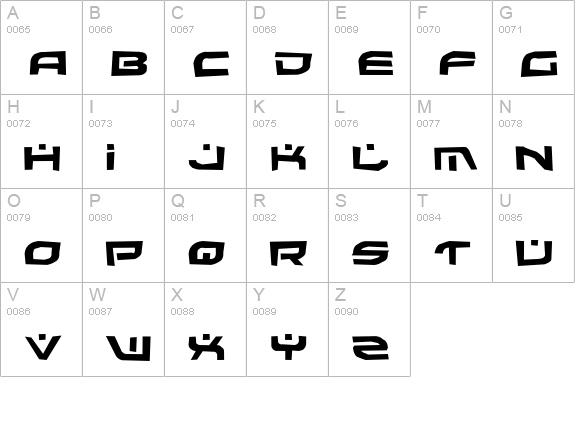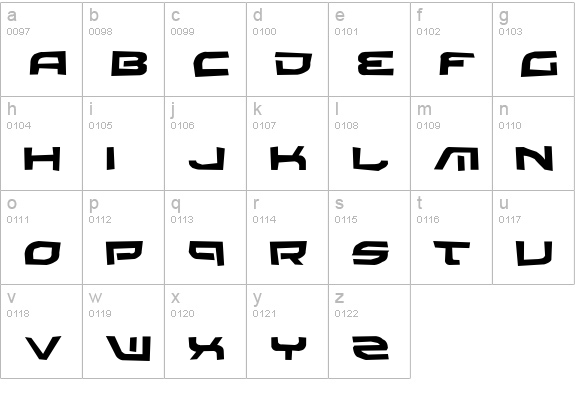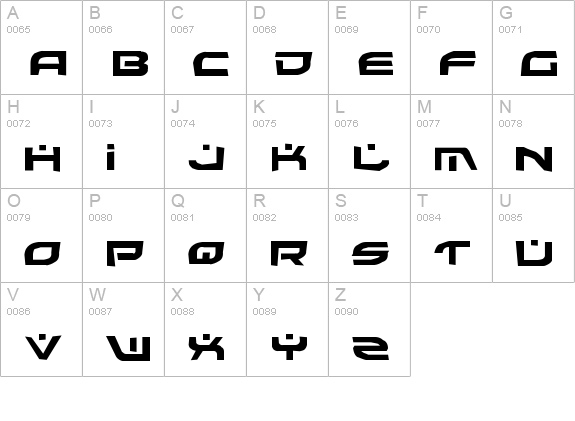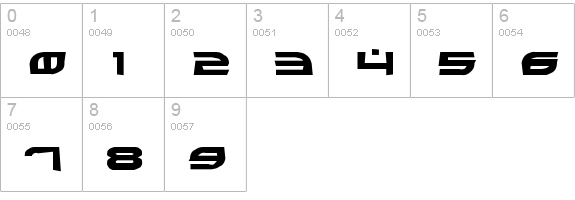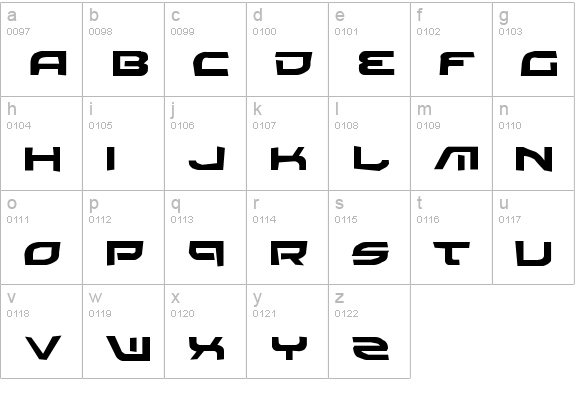
Battlefield Rock font is a bold and striking typeface that exudes power and strength. Its rugged design is reminiscent of battlefields and rocky terrains, making it perfect for projects that require a tough and edgy look. With its sharp angles and sturdy appearance, Battlefield Rock font commands attention and adds a touch of raw energy to any design. What makes Battlefield Rock font even more appealing is that it is available for free download at FontsMarket.com. This means that you can easily access this powerful font without having to spend a dime. Whether you're working on posters, logos, or any other creative project, Battlefield Rock font is a versatile choice that will make your designs stand out. Download it now and unleash the boldness of Battlefield Rock in your next project.